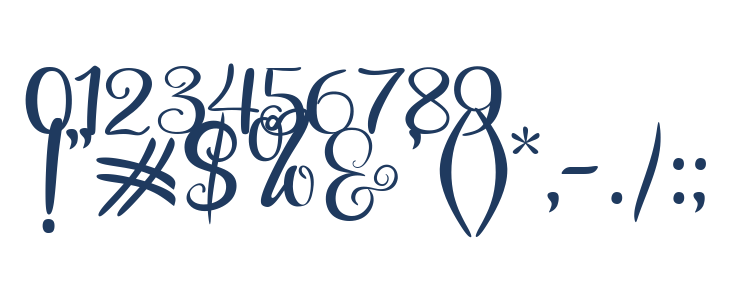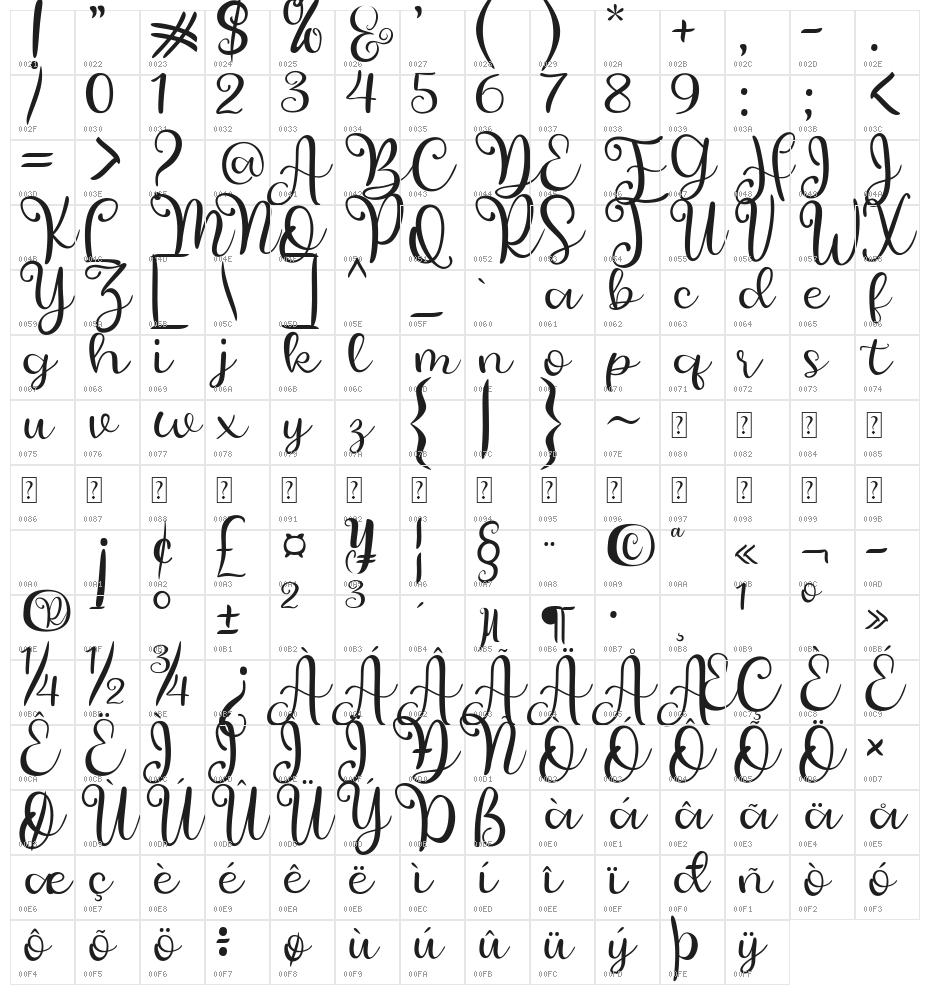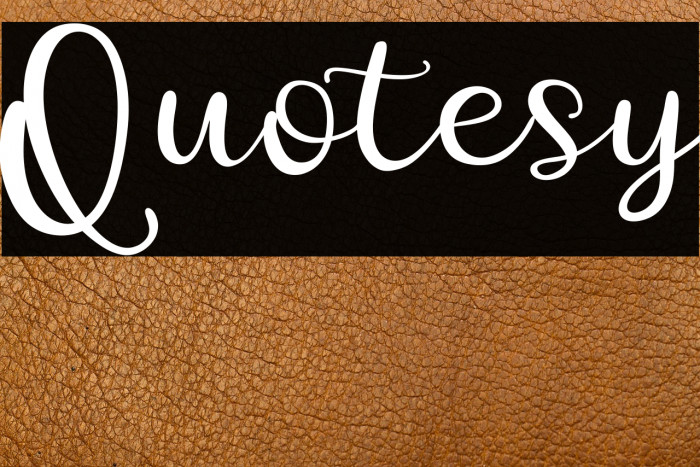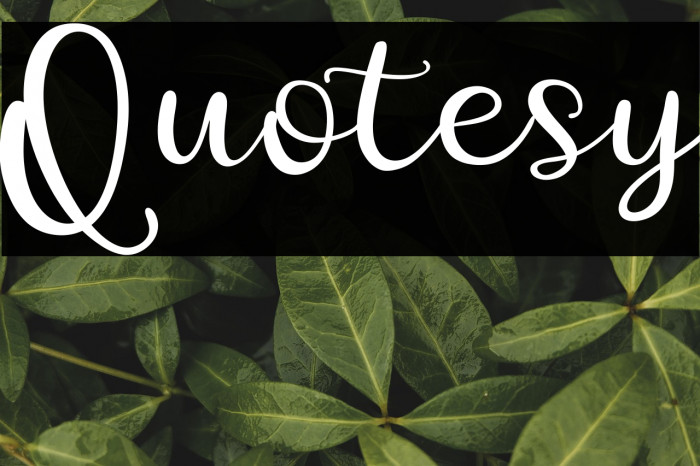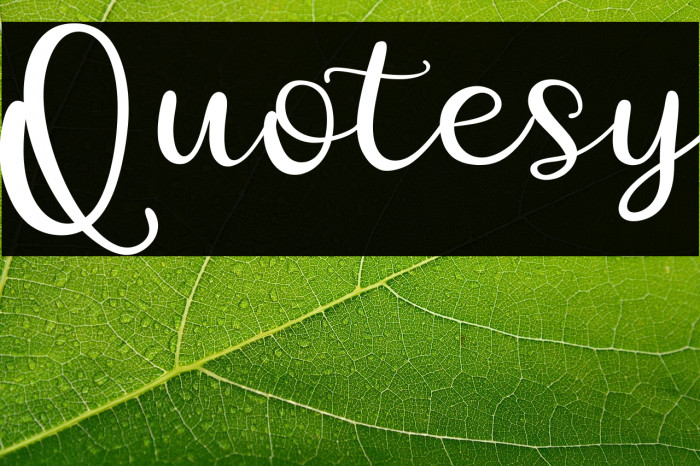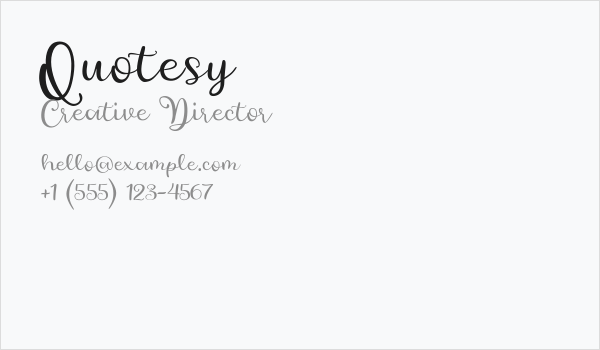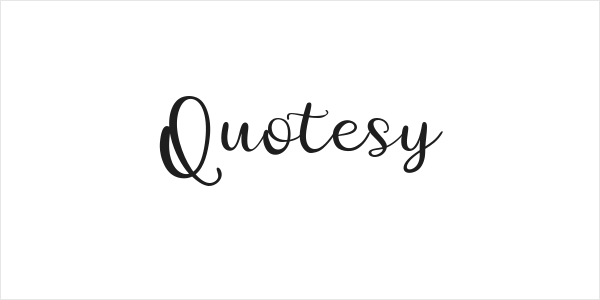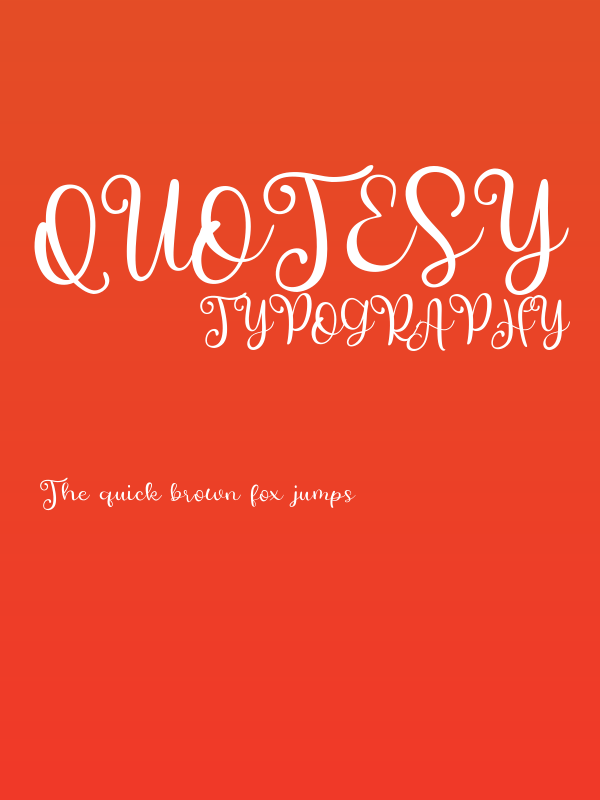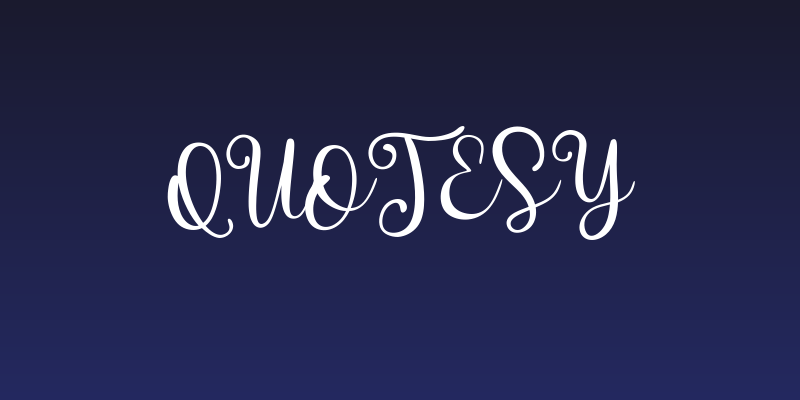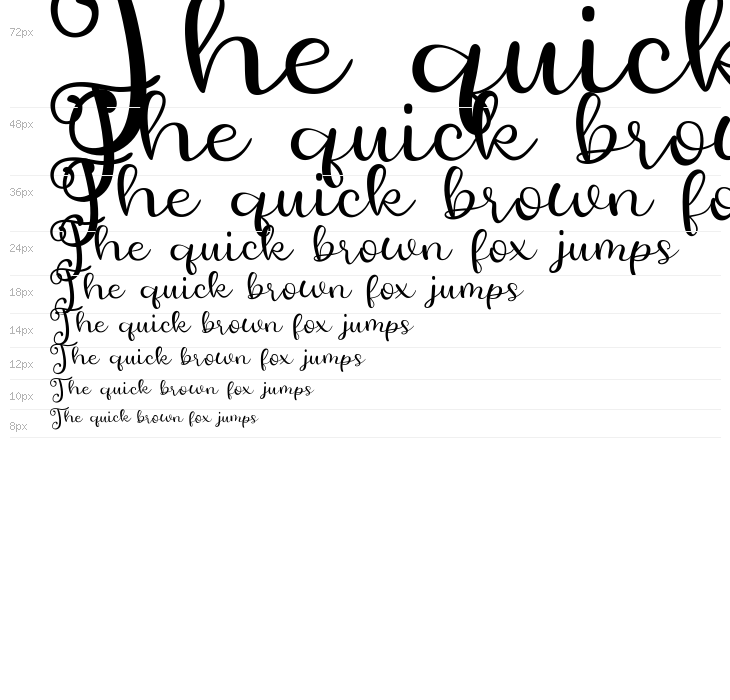
Quotesy Font
Quotesy Description
This font features an elegant and flowing script style, characterized by its smooth, cursive lines and graceful loops. The uppercase letters are ornate, with distinctive swirls that add a touch of sophistication. The lowercase letters maintain a consistent flow, enhancing readability while preserving the decorative nature. Numbers and special characters are designed to complement the script, with rounded edges and similar stylistic flourishes. The overall appearance is both stylish and legible, making it suitable for a variety of creative applications.
| Use Case | Logos, Invitations, Decorative text |
| Proposed Projects | Ideal for wedding invitations, greeting cards, branding, and logo design. |